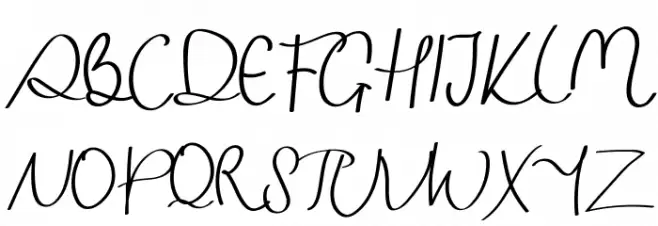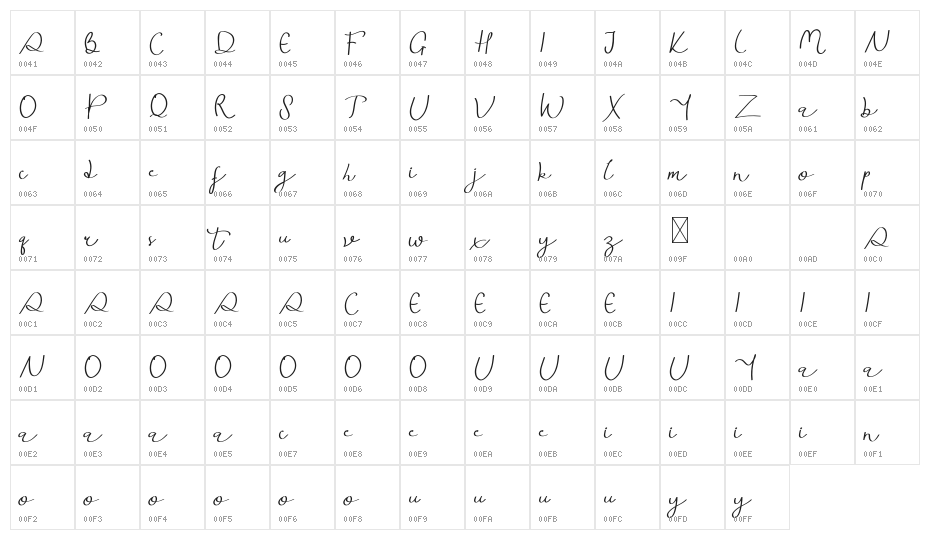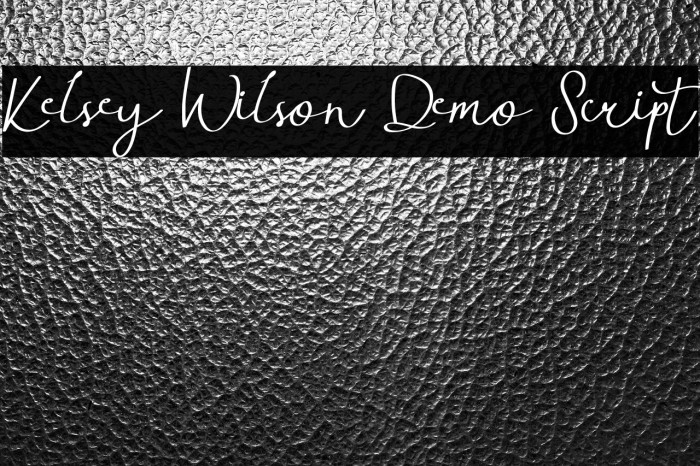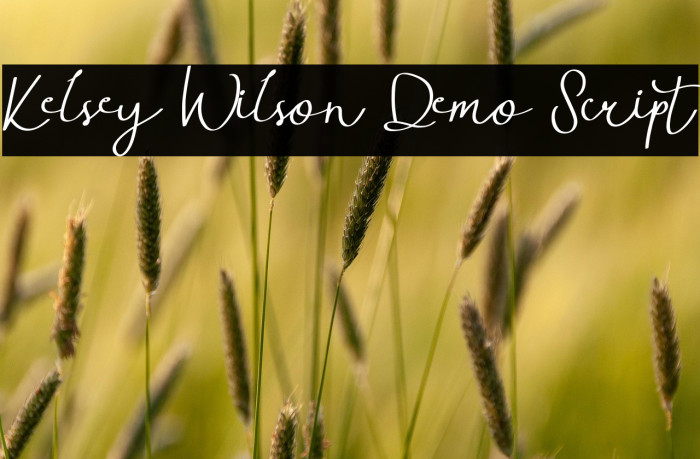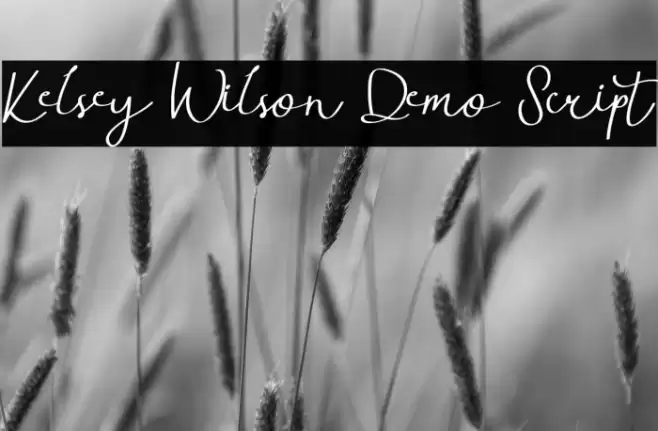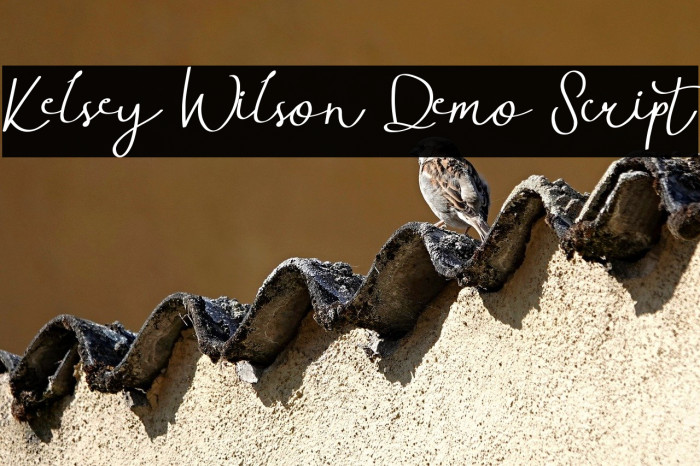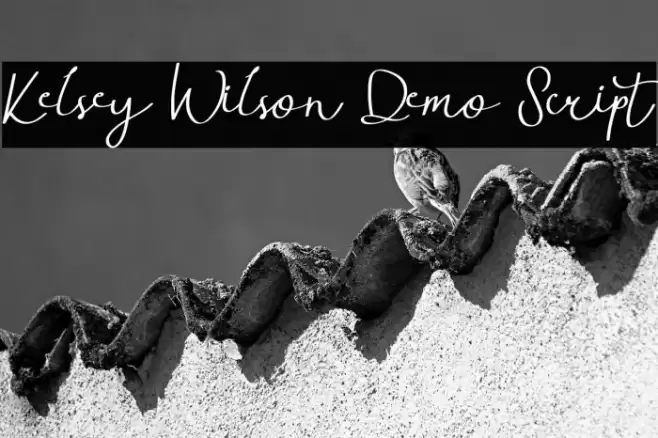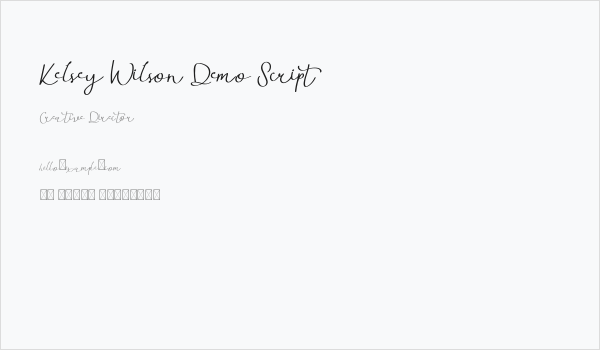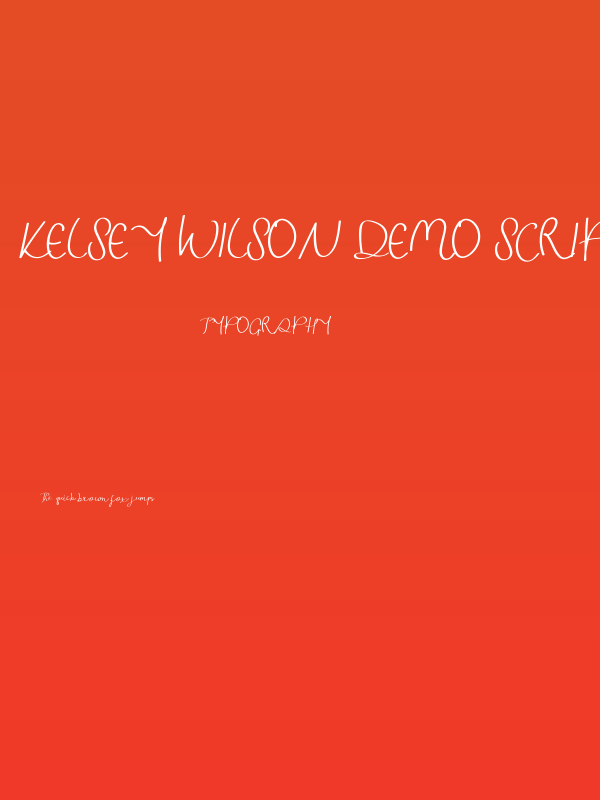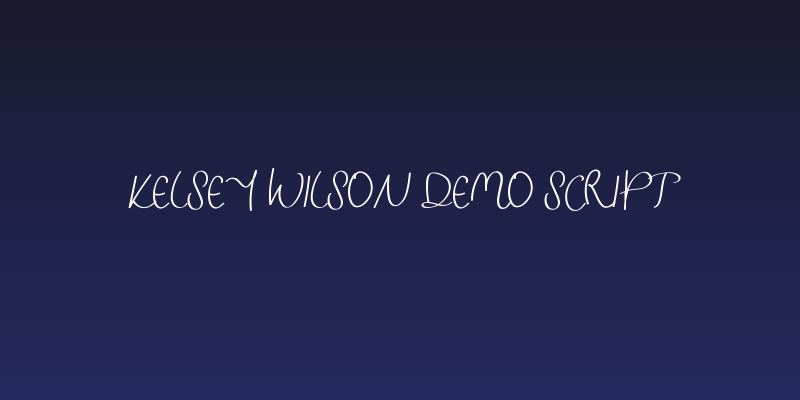
Kelsey Wilson Demo Script Font
Kelsey Wilson Demo Script Description
This script font exudes elegance and fluidity, characterized by its flowing, interconnected letterforms that mimic the natural motion of handwriting. The uppercase letters are grand and sweeping, with dramatic loops and curves, while the lowercase letters maintain a consistent rhythm and grace. The font's strokes are smooth and continuous, giving it a sophisticated and artistic appearance. It is well-suited for projects that require a personal touch or a sense of refinement. The overall style is both classic and contemporary, making it versatile for various design needs.
| Overall Style | Classic, Elegant |
| Proposed Projects | Ideal for wedding invitations, greeting cards, branding, and elegant packaging designs. |